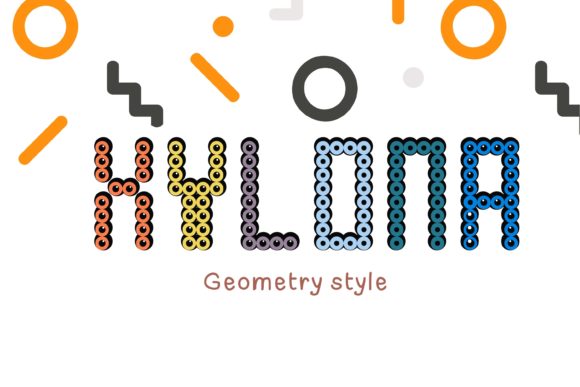
Welcome to the captivating world of Xylona Font, a decorative masterpiece crafted by the renowned PJ Fonttein. Prepare to be mesmerized by its intricate geometric patterns and playful charm, an irresistible combination that will elevate your designs to new heights.
Immerse yourself in the boundless creativity that Xylona Font unlocks. Whether you're crafting invitations for a whimsical children's party or creating eye-catching posters for a school project, this font will add a touch of magic to every creation. Its playful nature inspires joy and imagination, while its authenticity adds a personal touch that will resonate with your audience.
Step into a world where words dance and designs come alive. Xylona Font is the perfect choice for designers seeking a unique and captivating expression. Its versatility knows no bounds, effortlessly adapting to a myriad of design concepts. Unleash the power of creativity and let Xylona Font guide you on a journey of artistic exploration.
Xylona Font is more than just a collection of characters; it's an invitation to express your individuality and make a lasting impression. Its ability to evoke emotions and create meaningful connections is unparalleled, making it the ideal font for those who seek to leave an unforgettable mark.
Imagine the joy on a child's face as they receive an invitation adorned with the playful curves and geometric shapes of Xylona Font. Picture the impact of a school project that captivates the attention of both students and teachers alike, thanks to the captivating charm of this extraordinary font.
With Xylona Font, your designs will transcend the ordinary and enter the realm of the extraordinary. Prepare to be captivated by its beauty and versatility, and experience the transformative power of a font that will forever change the way you communicate.